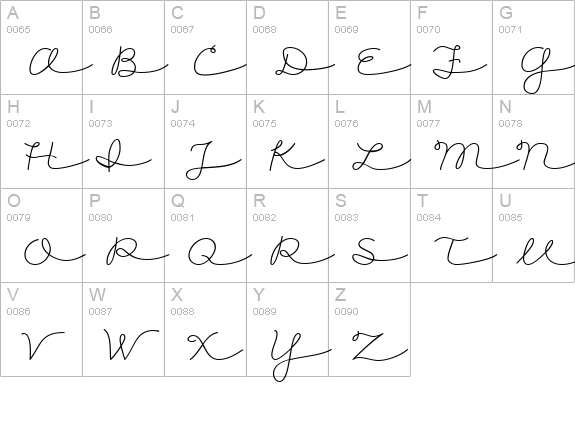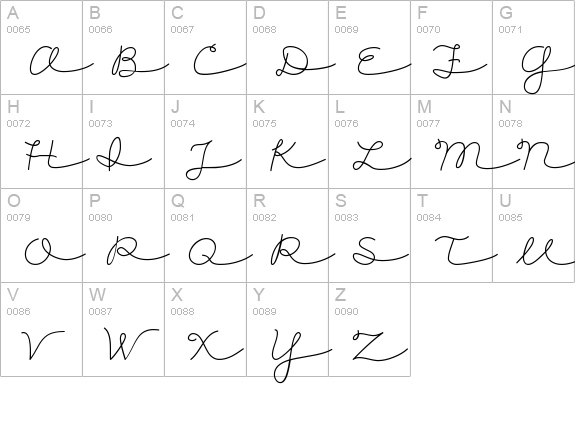
CK Cursive Font Details
The CK Cursive font exudes elegance and sophistication with its beautifully flowing script style. Perfect for adding a touch of charm to your designs, this font is ideal for invitations, greeting cards, and other creative projects where a touch of handwritten flair is desired. The CK Cursive font is not only visually appealing but also versatile, making it suitable for a wide range of design applications. Best of all, the CK Cursive font is completely free to download at FontsMarket.com. Simply head over to the website and add this stunning font to your collection without any cost. With its timeless appeal and effortless grace, the CK Cursive font is sure to become a favorite among designers and creatives looking to elevate their projects with a touch of classic elegance.